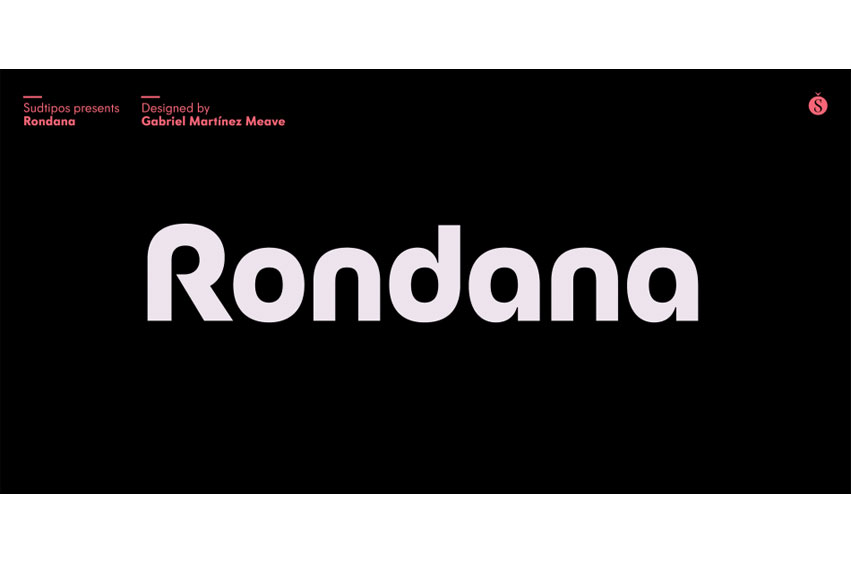
Rondana Font
Rondana Font is a geometric sans. Fun to use and delightfully expressive, Rondana is vibrant and strong in all of its four weights, and features true bold / regular and wide language support.
Excellent for headlines, captions, logo design, branding and just about everything in between.